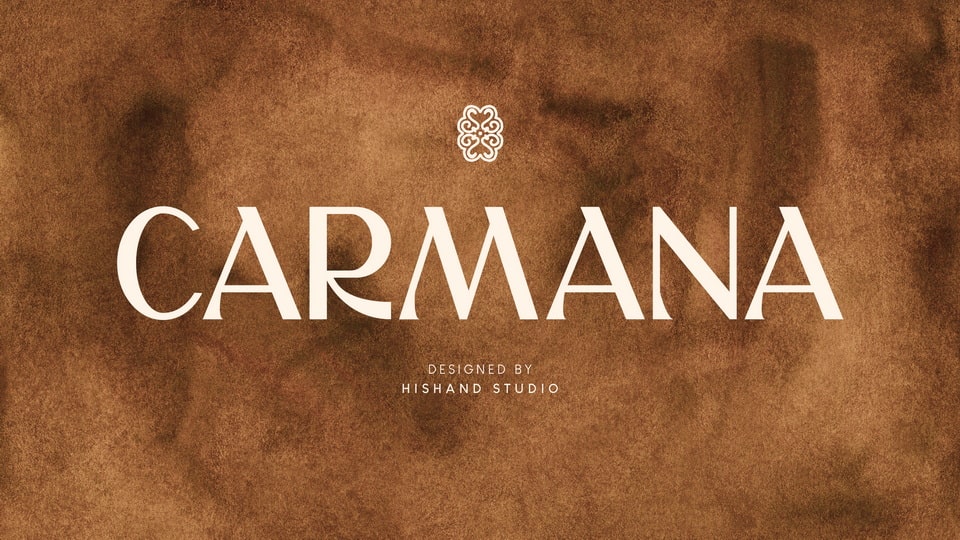
Download Carmana font, a stylish, modern typeface with sharp angles, clean lines, and elegant curves. It combines classic sans-serif elements with contemporary geometric details.